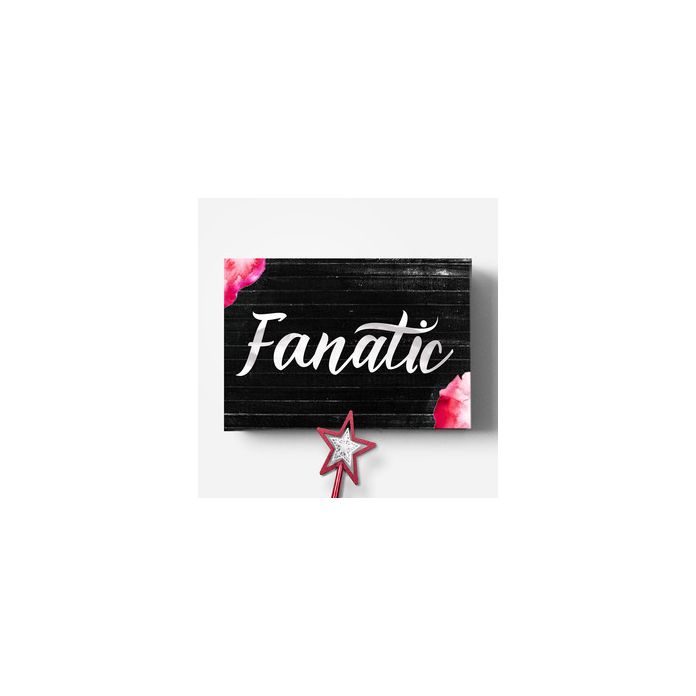
fanatic font
Fanatic Font is a bold and multi-purpose typeface that combines handwriting brushes naturally. It is suitable for logos, packaging, titles, posters, t-shirts, etc. It contains a total of 256 characters including various punctuation, numbers, and multilingual support. Fonts also contain alternative Stylistic Sets styles. TYPE LICENSE: This design is available for commercial use royalty-free today at a commercial price.